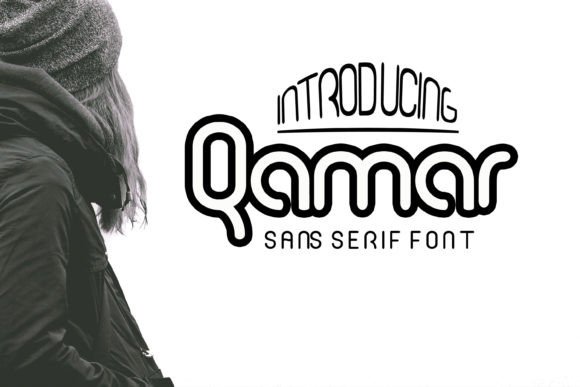
Enter the world of Qamar, a font that ripples with vibrancy and style, ready to ignite your creativity. Qamar, meaning 'moon' in Arabic, reflects the celestial wonder in each graceful curve and stroke. A sans serif masterpiece crafted by Canden Meutuah, this font exudes a modern allure, perfectly suited for those seeking a touch of whimsy in their designs.
Qamar's clean lines and smooth curves dance in perfect harmony, creating a visual symphony that captures attention with effortless grace. Whether crafting eye-catching headlines, captivating branding, or vibrant social media graphics, Qamar effortlessly adds a dash of playfulness and charm to any project.
Dive into the essence of Qamar, a font that not only captivates but also inspires. Its versatility shines in a multitude of design applications, ready to transform your creative visions into captivating realities. Embrace the enchanting aura of Qamar and embark on a journey of artistic expression that leaves a lasting impact.
With its single stroke design, Qamar is a dream come true for Cricut users. Its elegant simplicity allows for precise cutting, making it an ideal choice for crafting delicate designs, intricate patterns, and personalized projects. Effortlessly elevate your Cricut creations with Qamar, the font that seamlessly blends precision with a touch of magic.
Unlock the boundless possibilities of Qamar today and let your creativity soar. This font is more than just a collection of letters and symbols; it's a portal to a world of captivating designs, inspiring projects, and endless possibilities. Embrace the allure of Qamar and watch as your imagination takes center stage.